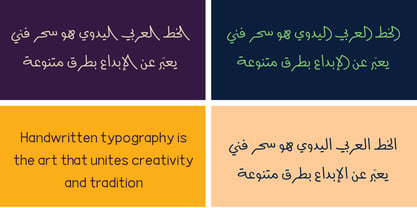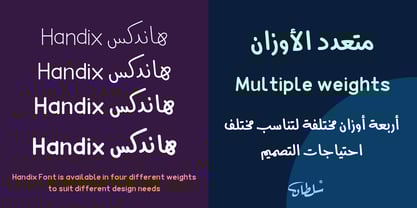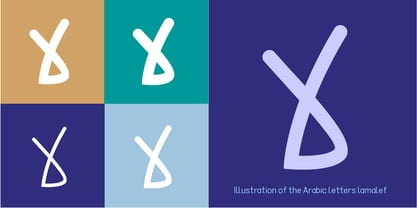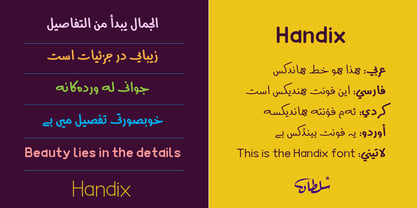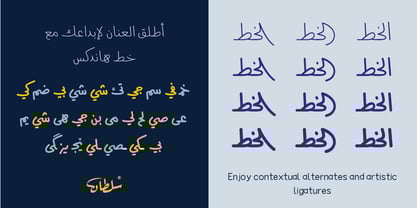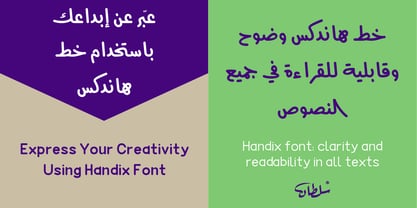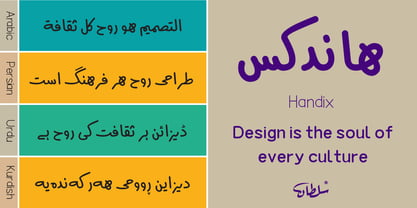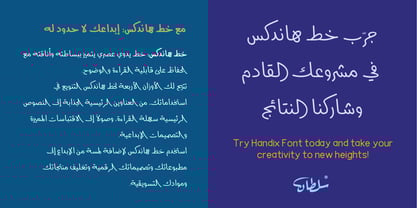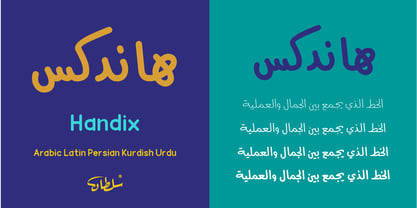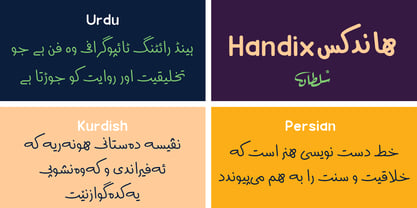
SF Handix
Handix
Handix is a versatile typeface inspired by the fluidity of natural handwriting. Designed by Sultan Maqtari, this multilingual font supports Arabic, Persian, Kurdish, Urdu, and Latin scripts, making it an ideal choice for global design projects.
Why Choose Handix?
• Four Distinct Weights: From Light to Bold, Handix offers the flexibility you need for any project—whether it’s subtle body text or attention-grabbing headlines.
• Advanced OpenType Features: Enjoy contextual alternates and artistic ligatures that bring authenticity and creativity to your work.
• Cross-Platform Excellence: Perfectly optimized for both print and digital screens, ensuring your designs look flawless in every medium.
• Global Appeal: Seamlessly create designs that resonate with audiences across multiple languages and cultures.
Handix is the perfect tool for designers seeking elegance, functionality, and versatility in their typography.